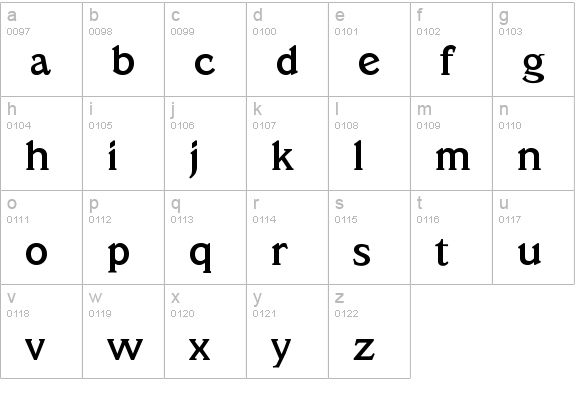
Veracruz-Medium is a balanced, medium-weight variant in the Veracruz typeface family \xE2\x80\x94 well suited to sub-headlines, navigation, and balanced editorial work.
Veracruz-Medium is a stunning and versatile font that exudes elegance and modernity. Its clean lines and balanced proportions make it perfect for a wide range of design projects, from branding and logos to headlines and body text. With its medium weight, Veracruz-Medium strikes the perfect balance between being impactful and maintaining readability. This font is the epitome of functionality, as it effortlessly combines sophistication with legibility. Its well-defined characters and consistent spacing ensure a seamless reading experience across various mediums, whether it be print or digital. Veracruz-Medium's timeless appeal makes it suitable for both contemporary and traditional designs, allowing it to adapt to any visual concept. One of the best features of Veracruz-Medium is that it is freely available to download at FontsMarket.com. This means that designers and creatives have the opportunity to access this exceptional font without any cost, granting them the freedom to explore its potential in their projects. By offering Veracruz-Medium for free, FontsMarket.com has made it accessible to a wider audience, empowering designers to bring their visions to life without any limitations. Whether you're looking to enhance a logo, create eye-catching headlines, or craft captivating body text, Veracruz-Medium is the ideal font choice. Its alluring aesthetics and effortless legibility will undoubtedly elevate your designs, making them truly stand out. Download Veracruz-Medium today from FontsMarket.com and experience the power of this remarkable font in your creative endeavors.